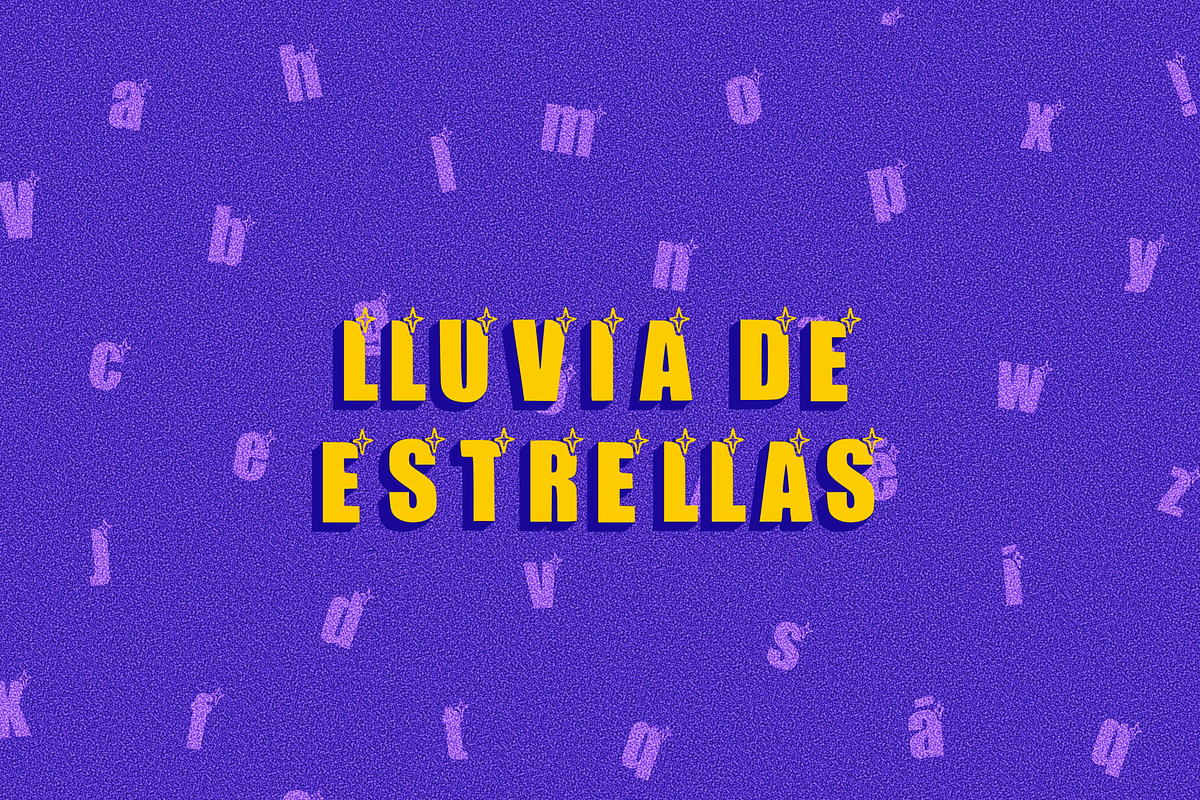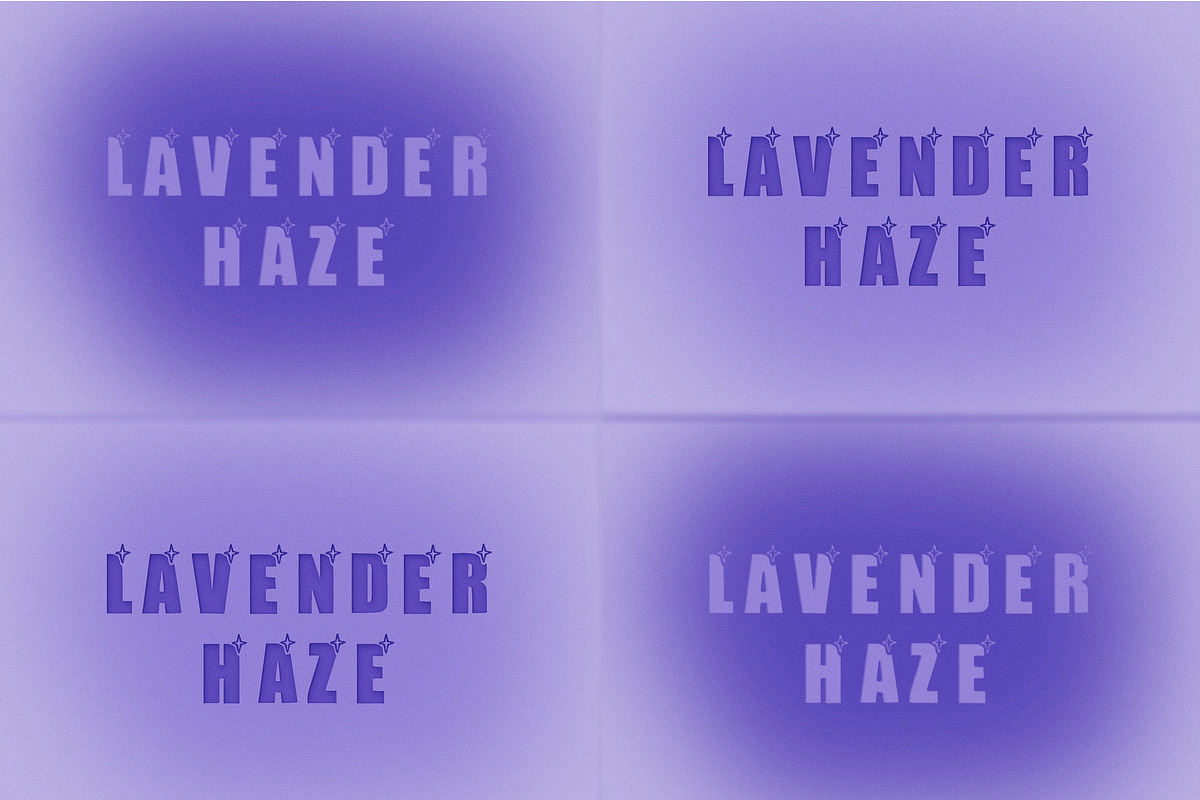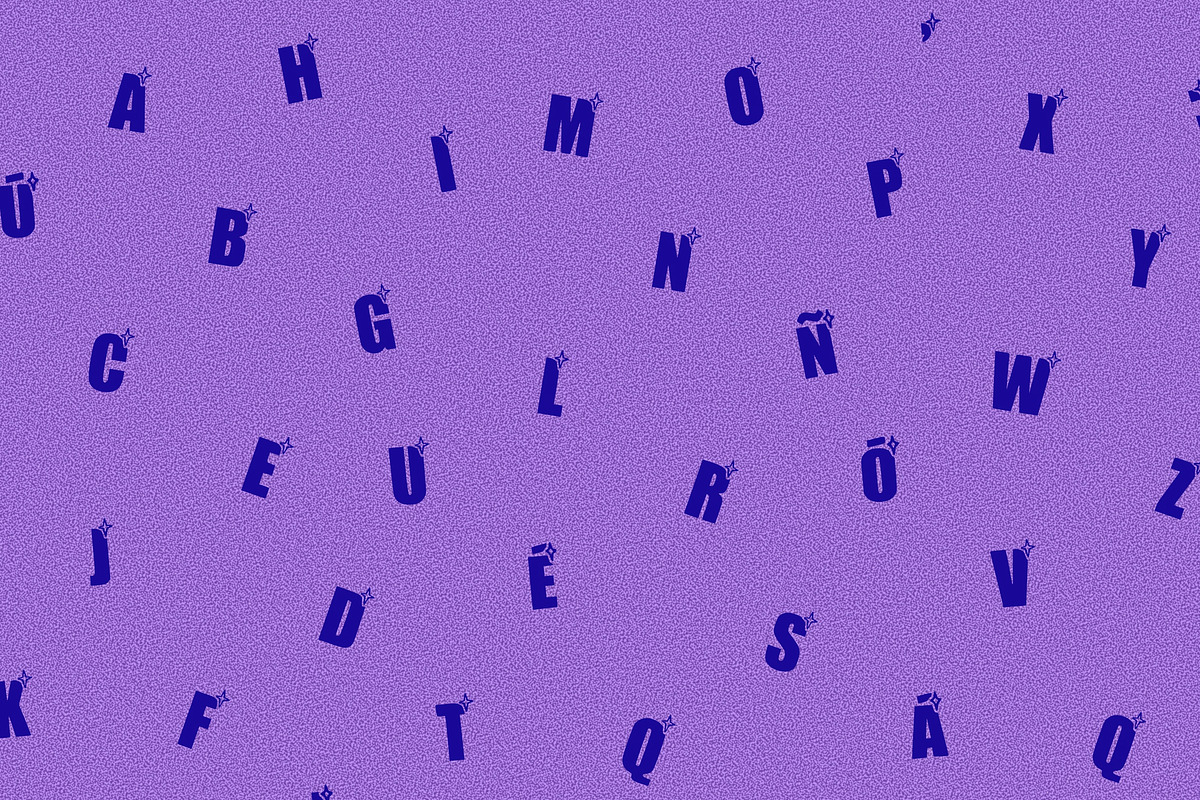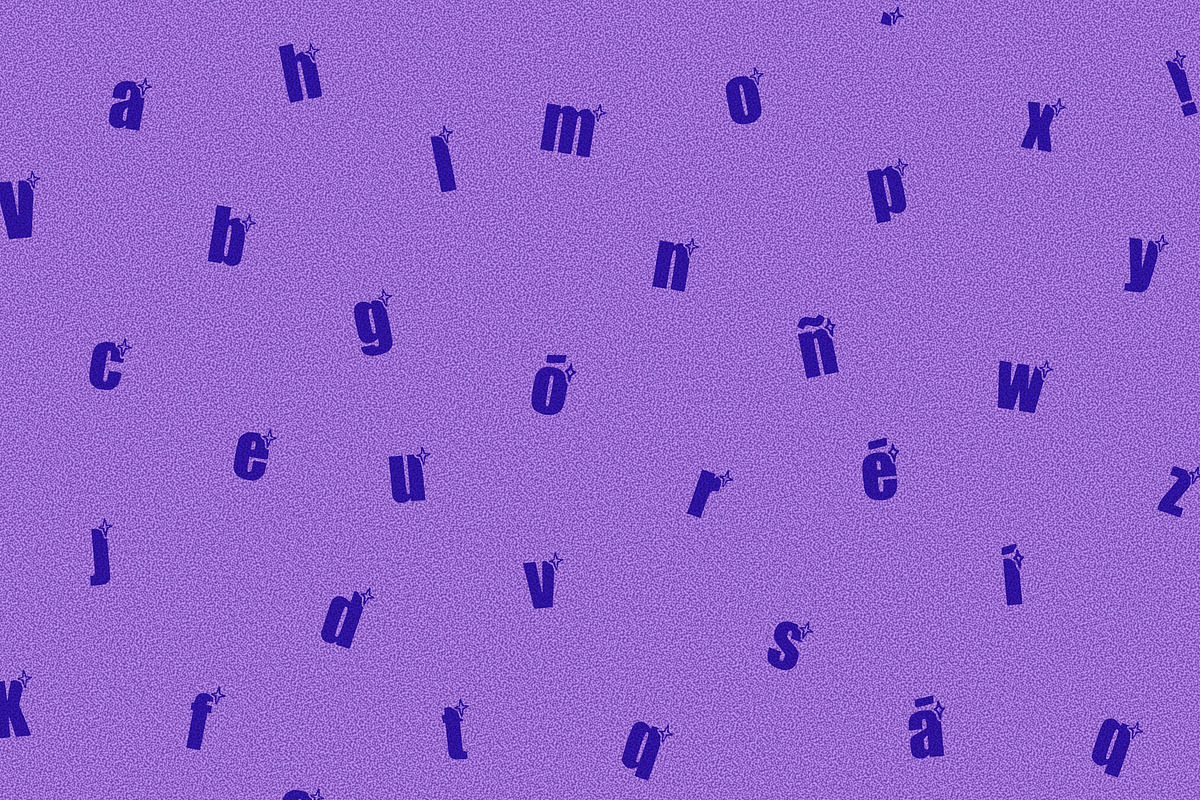
Lluvia de estrellas
Lluvia de estrellas is a sparkling font full of stars.
Simple Bold font, inspired by stars. This font was designed by me, Carmen Landeros but you can call me calmy. Proudly Mexican digital illustrator.